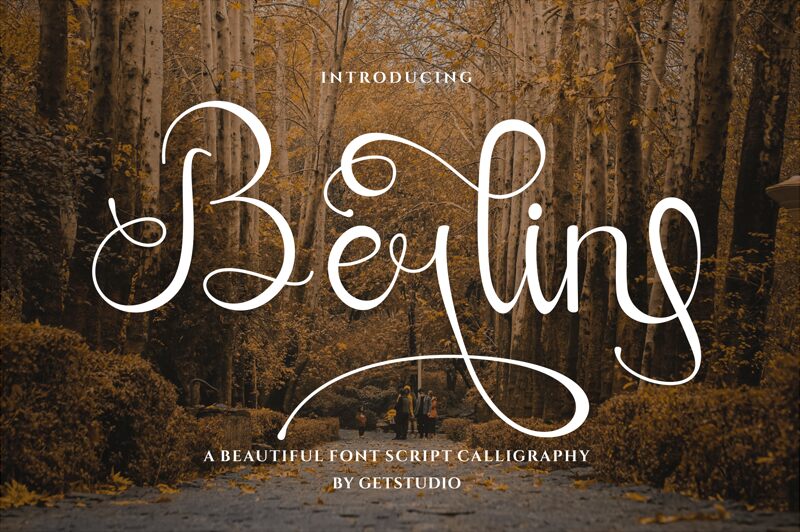
Berlin
Berlin, by Get Studio, is a stunning calligraphy font that is sure to elevate any project it's used in. The semi-light weight of this font adds an airiness and delicacy to its flowing lines and curves. Berlin is perfect for wedding invitations, greeting cards, or any other design that requires a touch of elegance and sophistication. Its versatility also makes it suitable for branding projects or social media graphics. The graceful strokes of Berlin are sure to catch the eye and leave a lasting impression on anyone who sees it.